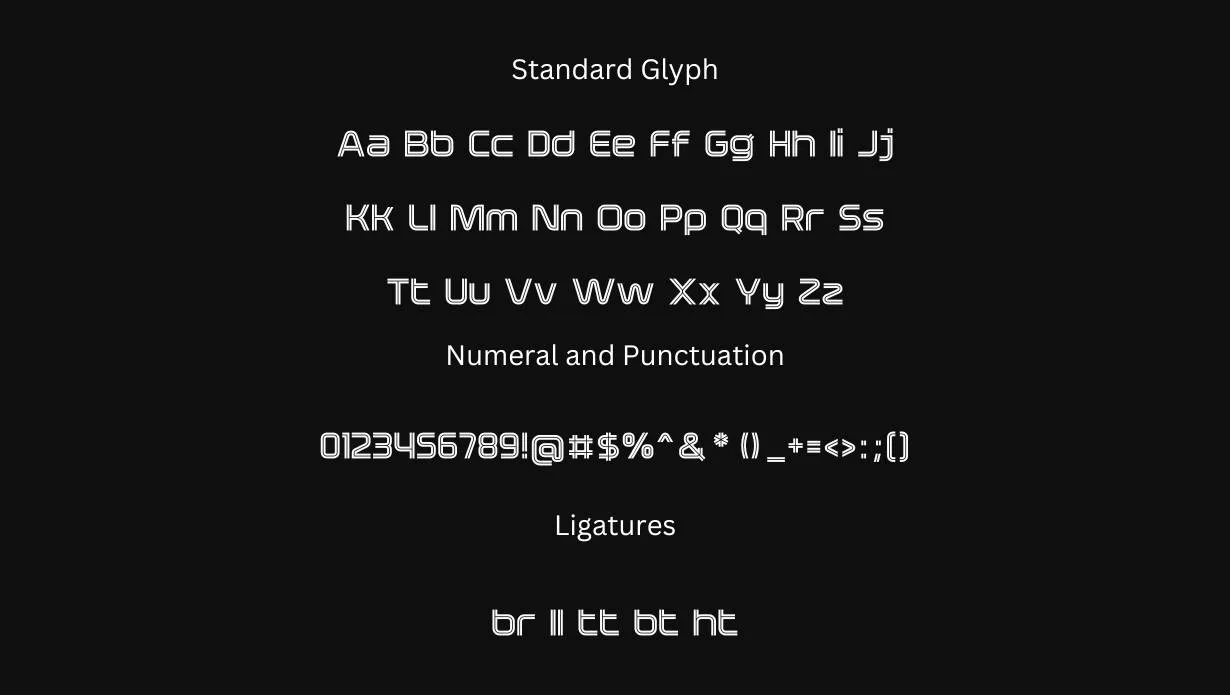
This techno style has several qualities that make it ideal for designing new ideas. The font’s thick strokes and sharp lines provide each point with a strong contrast.
This design is simple for reading in small sizes thanks to its wide letters. The weight is regular. The pattern is perfect for making innovative and beautiful creations because it includes stunning characters. The typeface also includes a number of languages.
Usage Of Vegas-x Font
A variety of designs can be formed with this font, including logos, banners, and web designs. Several places, such as fashion magazines, books, newspapers, and company branding, would benefit from the use of this font.
The typeface is used by a wide range of designers who design clothes, bags, T-shirts, and other products related to this field. Fancy signature font this is an elegant and attractive pairing style.
It would be a great choice to combine the typeface with some other text style to produce a special and eye-catching project design. Any document that needs an elegant touch in this style can be a great fit for the task.
This design is useful for creating magazine covers, banners, and social media posts. This is also a great material for newspaper design, posters, and other related projects.
Vegas-x Font Family View
Name | Vegas-x Font |
Style | Techno |
Designer | XdCreative |
Vegas-x Font Family (Includes 1 Typeface)
- Vegas-x Regular
The unique style is created by XdCreative it is a unique and attractive font that can create interesting designs.